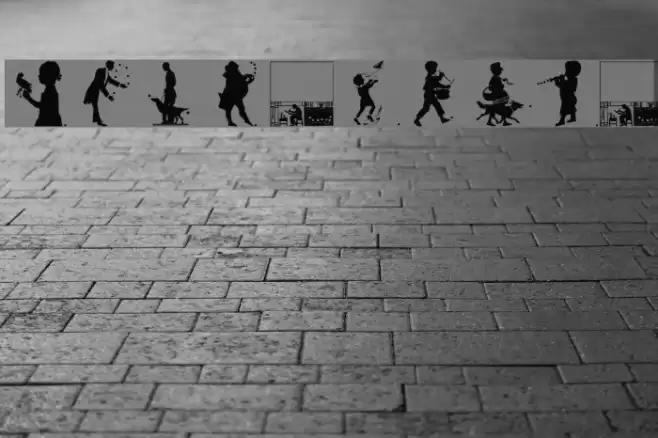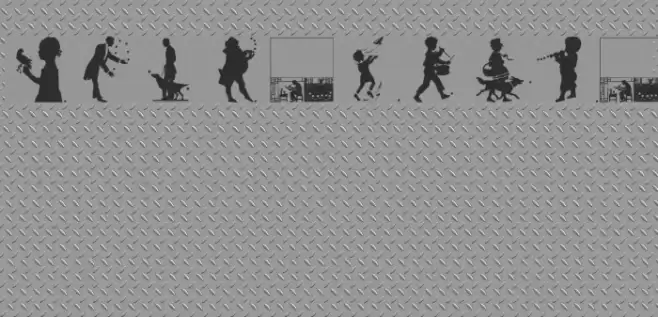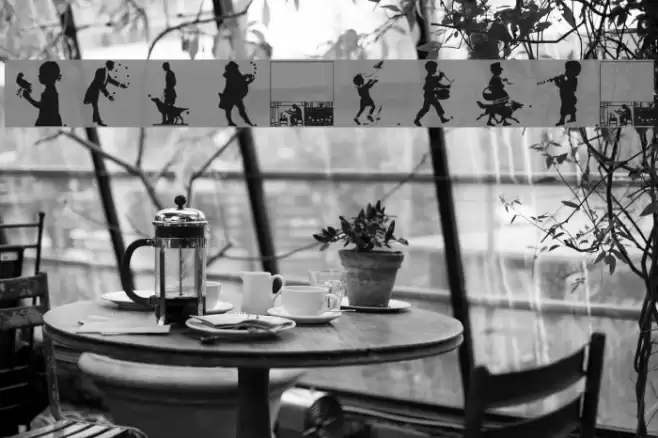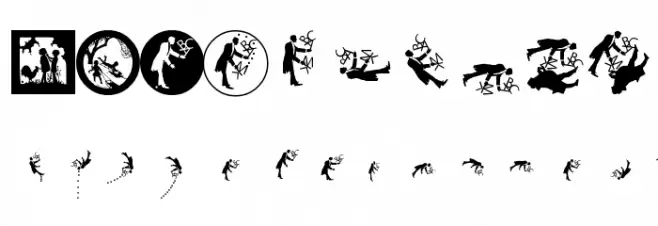
SilhousTwo Font
SilhousTwo Description
A decorative display font composed of detailed black silhouette illustrations depicting children and adults in various playful, whimsical, and narrative scenes, often framed or interacting with objects and animals. Each character is represented by a unique silhouette rather than a traditional letterform.
Whimsical silhouette illustration font with narrative scenes from Dingbats fonts.
- Proposed Projects: Children's book covers, storybook illustrations, event posters, educational materials, creative branding.
- Overall Style: Decorative, Whimsical, Narrative
- Use Case: Logos, Headlines, Posters, Themed graphics